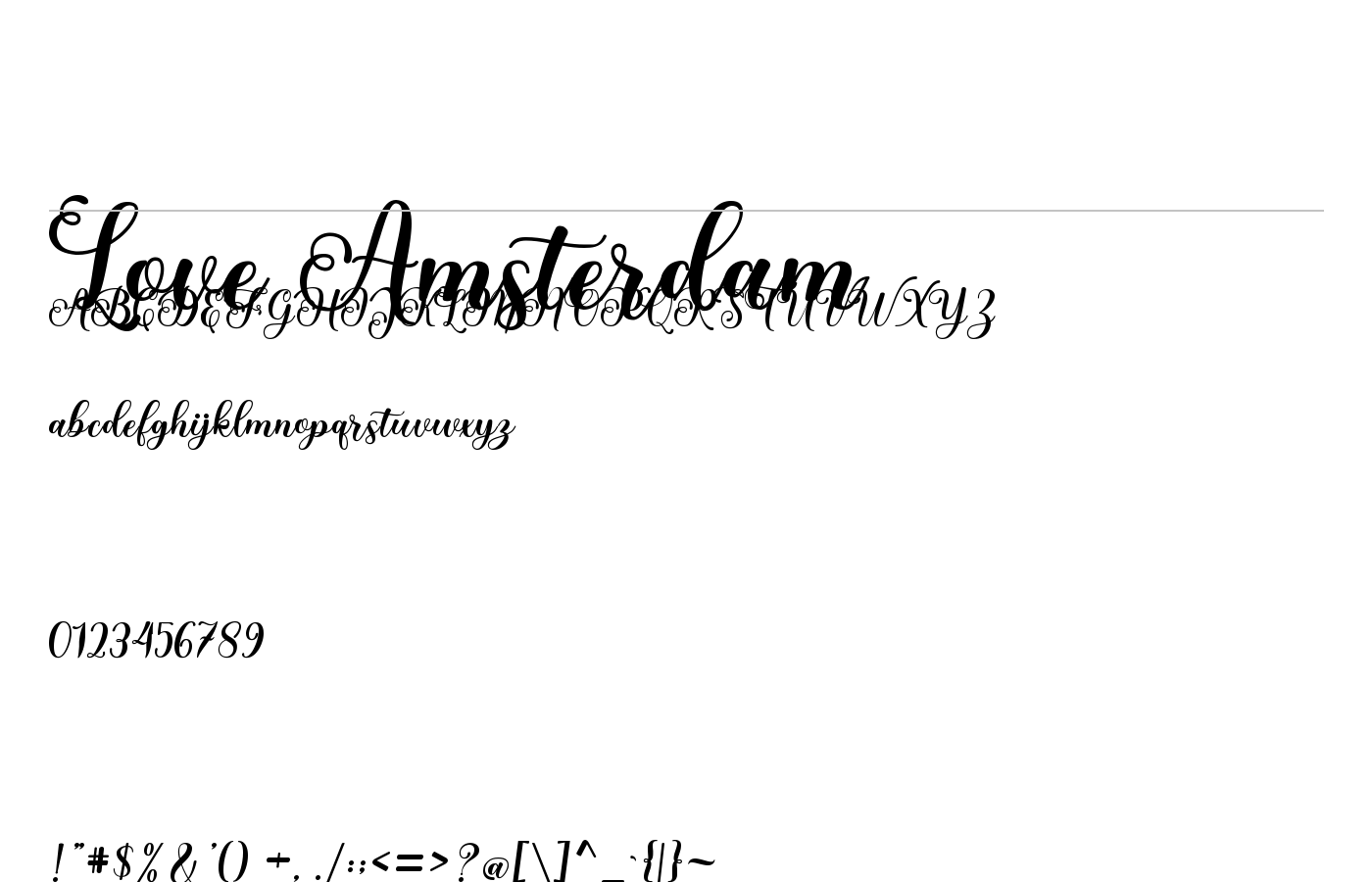
Love Amsterdam is a stylish script font that combines elegant, flowing strokes with a bold, expressive flair. Its cursive letterforms feature smooth curves and tasteful swashes, making it perfect for romantic, feminine, and artistic designs. This font works wonderfully in logo design, invitations, packaging, and headlines where a touch of elegance and personality is desired.
Love Amsterdam Font
About Love Amsterdam Font